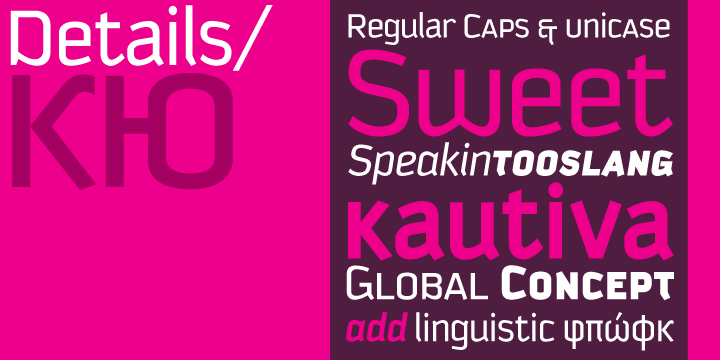
Kautiva Font is perfect for branding projects, logo design, wedding invitations, social media graphics, poster design, magazine layouts, book covers, packaging design, and modern advertising campaigns.
Kautiva Font is exciting because it combines contemporary elegance with exceptional readability, making it a versatile choice for both digital and print media. Its unique character set and sophisticated letterforms create a professional appearance that captures attention while maintaining excellent legibility across all sizes.
The Kautiva Font family includes multiple weights and styles: Regular, Bold, Light, Medium, Italic variants, and Extended versions, providing designers with comprehensive options for various design needs and hierarchical text structures.
This stunning typeface represents the perfect balance between modern design trends and timeless typography principles. Kautiva Font Free Download offers designers an opportunity to explore premium typography without initial investment. The font's clean lines and refined details make it ideal for luxury brands, tech companies, fashion magazines, and editorial design projects.
Kautiva Font features extensive language support, including Latin characters, special symbols, and punctuation marks, ensuring global usability. Its OpenType features include stylistic alternates, ligatures, and contextual alternates that enhance text flow and visual appeal.
The versatility of Kautiva Font extends beyond traditional applications. It performs exceptionally well in web design, mobile applications, signage systems, and digital interfaces. The font's optimized spacing and kerning ensure consistent performance across different platforms and devices.
Professional designers appreciate Kautiva Font for its reliability and aesthetic appeal. Whether you're creating corporate identities, editorial layouts, or creative advertising materials, this font delivers consistent results. The careful attention to detail in each character makes it suitable for both large headlines and body text applications.
Kautiva Font represents modern typography at its finest, offering designers the tools they need to create compelling visual communications that stand out in today's competitive market.